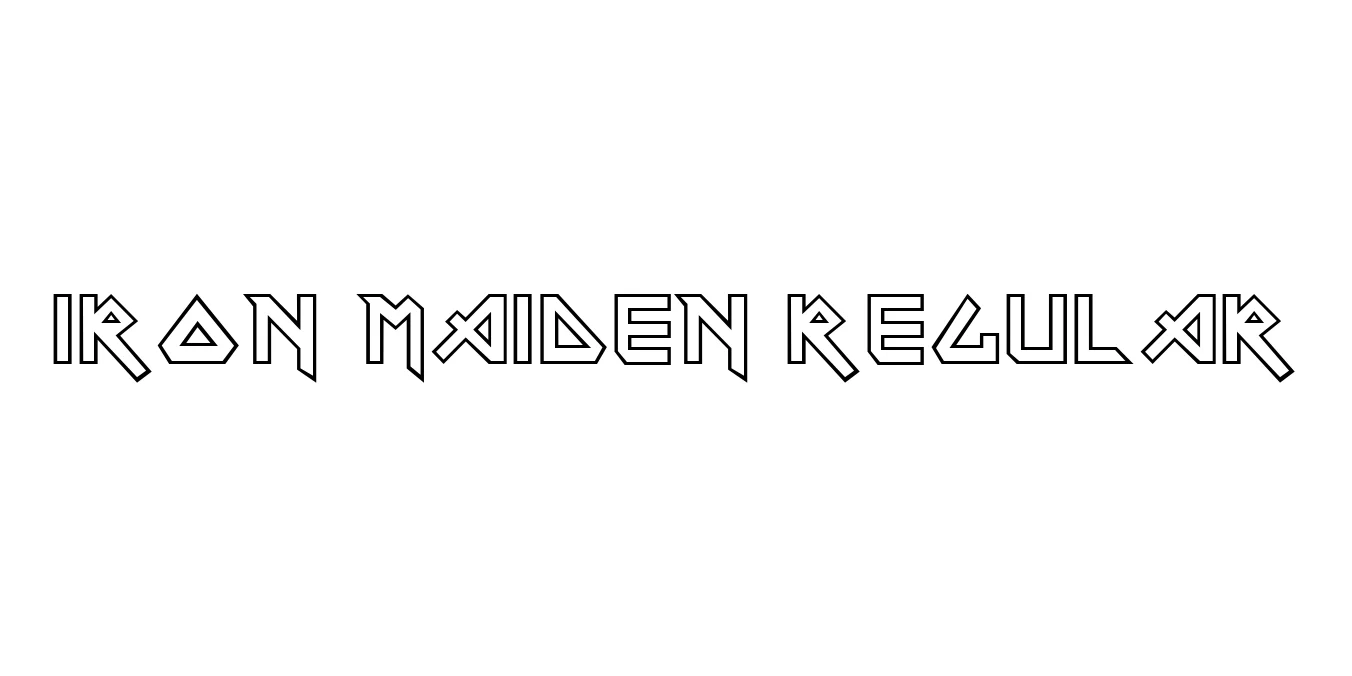
Iron Maiden Regular
Designed by Ray Larabie
The Iron Maiden Regular font is a legendary display typeface inspired by the iconic logo of the British heavy metal pioneers, Iron Maiden. This typeface captures the raw energy and aggressive aesthetic of the New Wave of British Heavy Metal, featuring sharp, jagged edges and a stencil-like construction that has become synonymous with the band's visual identity since their debut in the late 1970s.
While the original logo was hand-drawn, various digital interpretations like the version by Ray Larabie have made this style accessible for graphic designers worldwide. It is characterized by its high-contrast strokes and intimidating presence, making it a staple for projects requiring a hard rock or gothic metal vibe. Its enduring popularity ensures it remains a go-to choice for fans and creators in the music and gaming industries.
Iron Maiden Regular Best Uses
Ideal for band logos, album covers, and concert tour posters.
Perfect for t-shirts and merchandise targeting the rock and metal subcultures.
Great for horror or action-themed video game titles and UI elements.
Use for high-energy events, festivals, and rock-themed nightclubs.